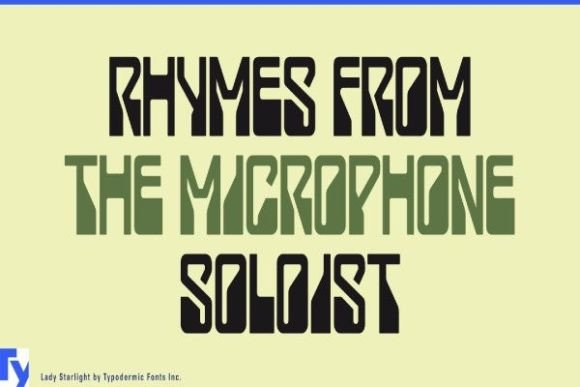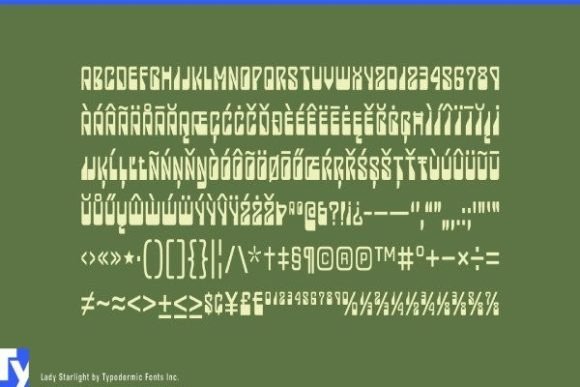
Lady Starlight Font
Lady Starlight is a bold display font inspired by the Scorpions band logo. It is perfect for wall displays, social media posts, logos, advertisements, product packaging, product designs, labels, photography, watermarks, invitations, stationery, and many more.